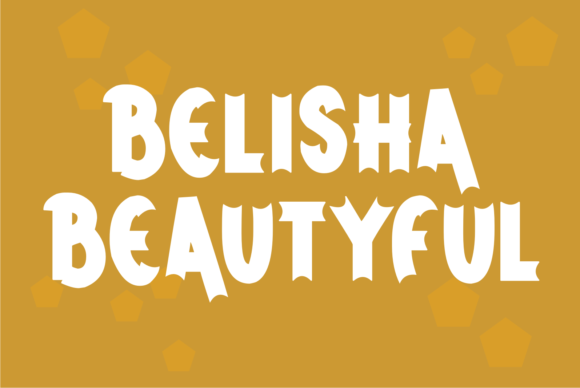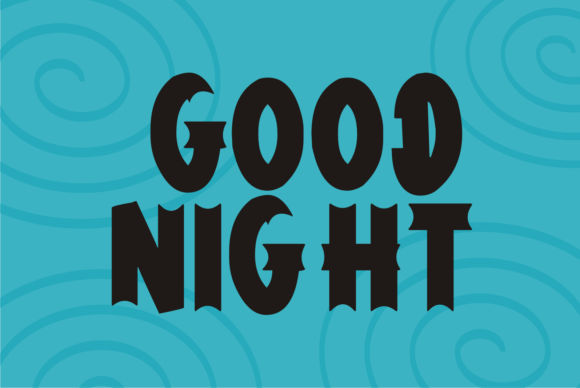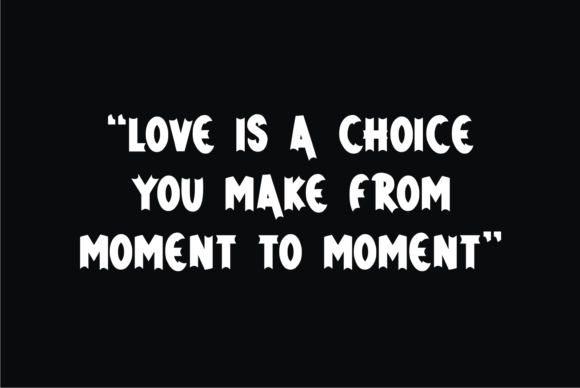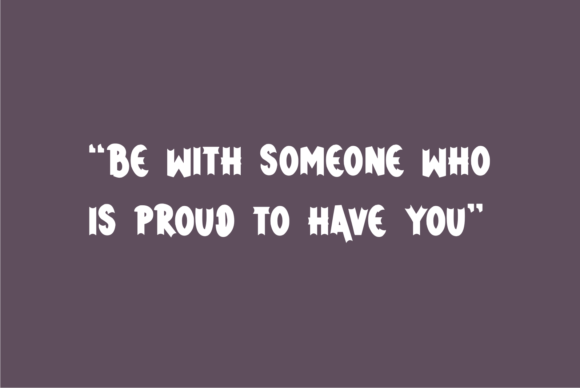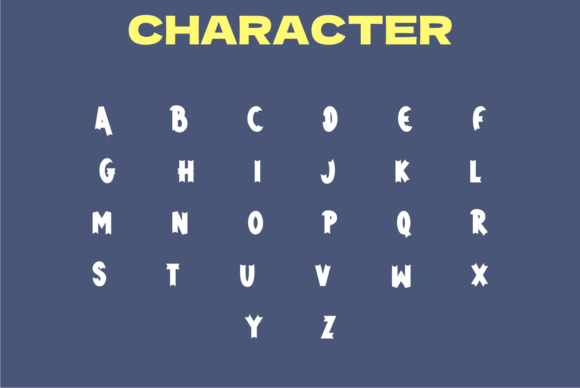
Introduction to Nurela Font
Nurela is a thick-lettered and cool display font.
Simple but with a strong visual effect, this font will instantly make your creations more appealing than any others .
Key Features of Nurela Font
Why Choose Nurela Font?
Nurela Font offers exceptional quality and versatility, making it a valuable addition to your design toolkit. Whether you’re creating for personal projects or commercial use, Nurela Font delivers professional results.